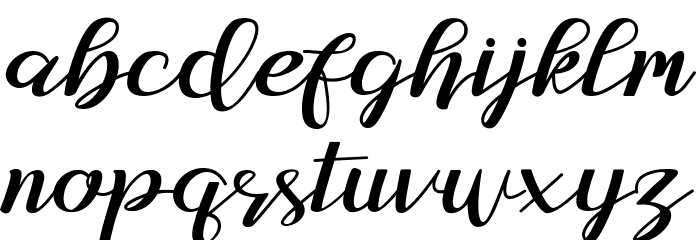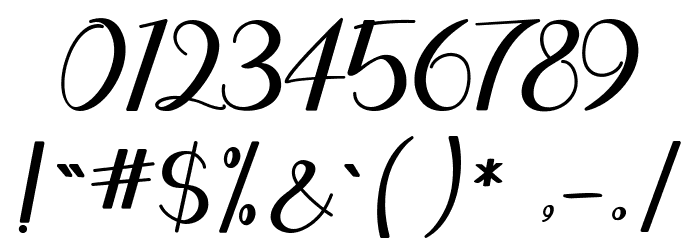
Lovely Natasya Font
This elegant script font features a flowing, cursive style with a modern twist. The uppercase letters are tall and slightly slanted, with graceful loops and flourishes that add a touch of sophistication. The lowercase letters maintain a consistent flow, connecting smoothly to create a seamless appearance. Numbers and special characters are designed with the same attention to detail, ensuring a cohesive look across all elements. The font's overall aesthetic is both stylish and versatile, making it suitable for a variety of design projects.
A modern, elegant script font with flowing cursive letters and sophisticated flourishes.
- Proposed Projects: Ideal for wedding invitations, branding, social media graphics, and elegant packaging designs.
- Category: Script
- Use Case: Logos, Invitations, Branding